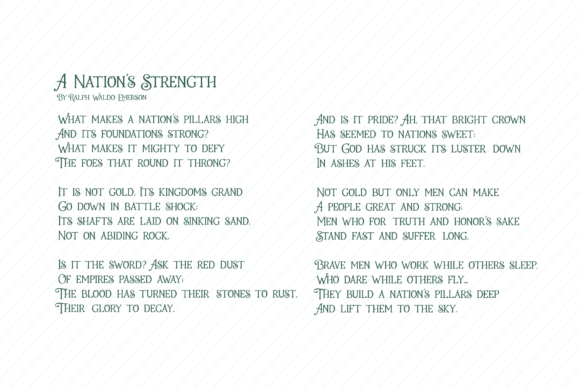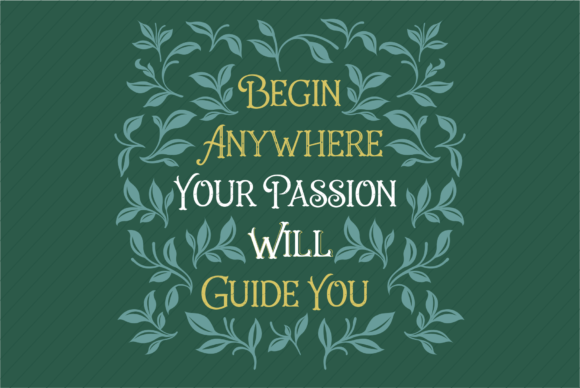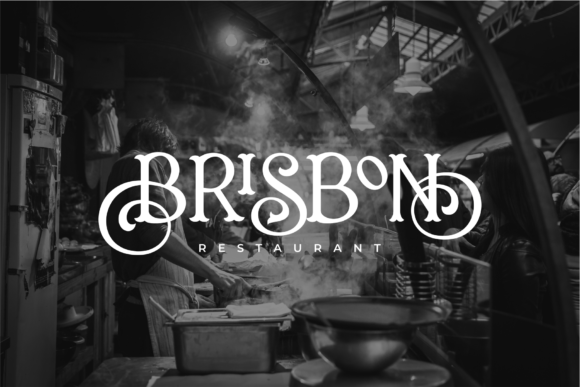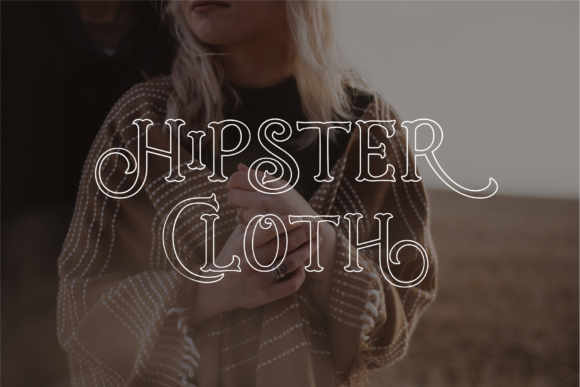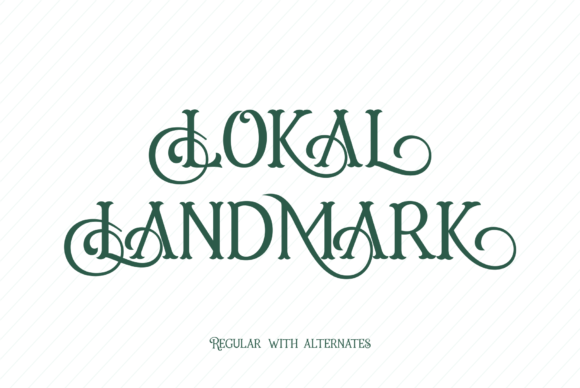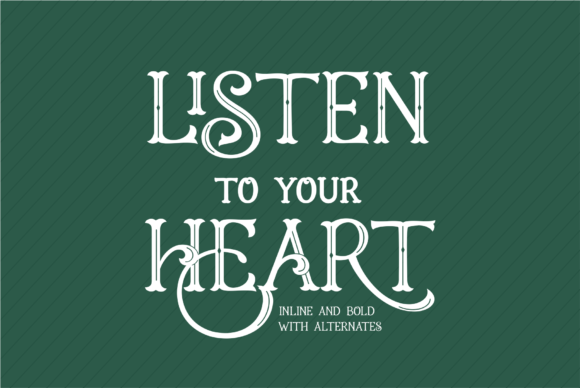
Holiday Present Family Font – Free Download
Introduction to Holiday Present Family Font
The Holiday Present is a fun display family.
Its 9 styles will give your design a happy and playful feel Perfect for holiday designs, greeting cards, wedding invitations, branding, custom art, logotype, printed quotes, badges, insignia, packaging, headlines, posters, t-shirt/apparels, and labels.
Why Choose Holiday Present Family Font?